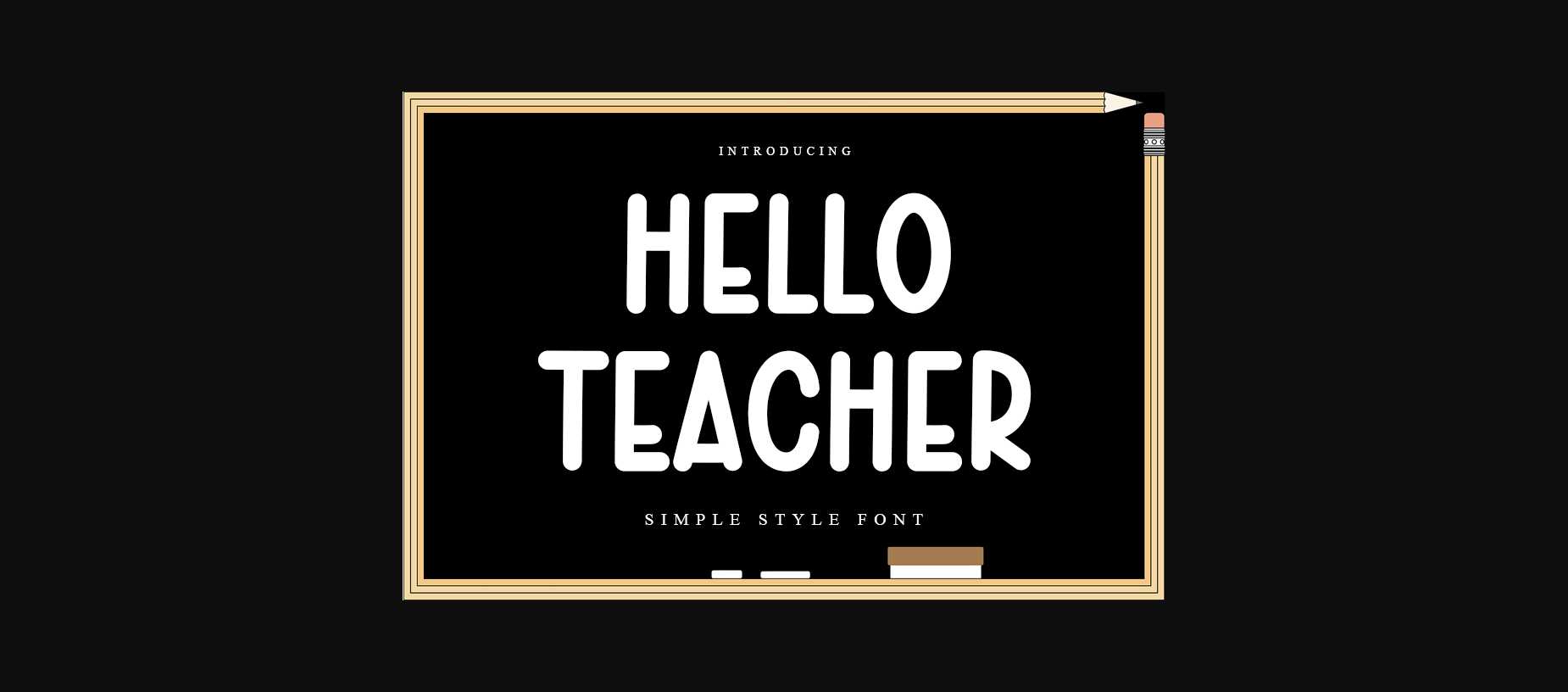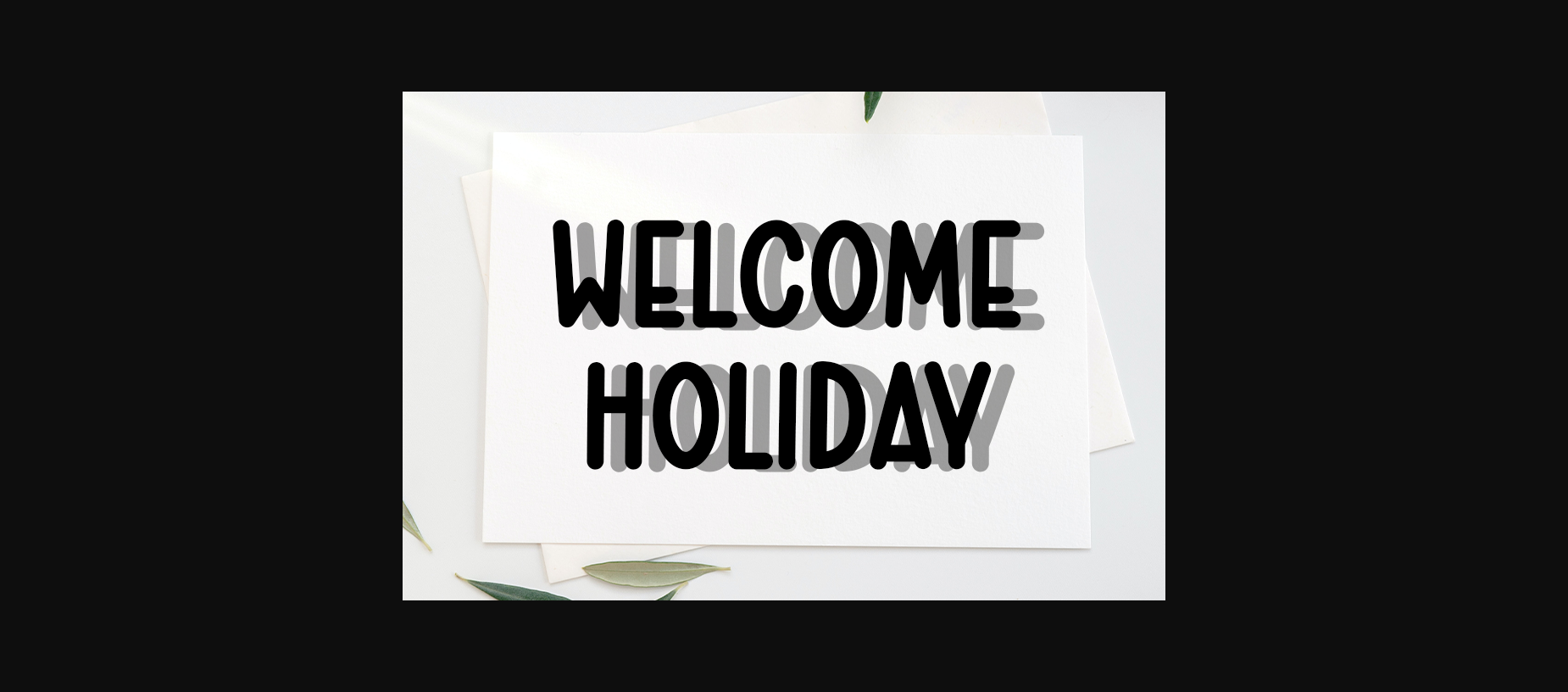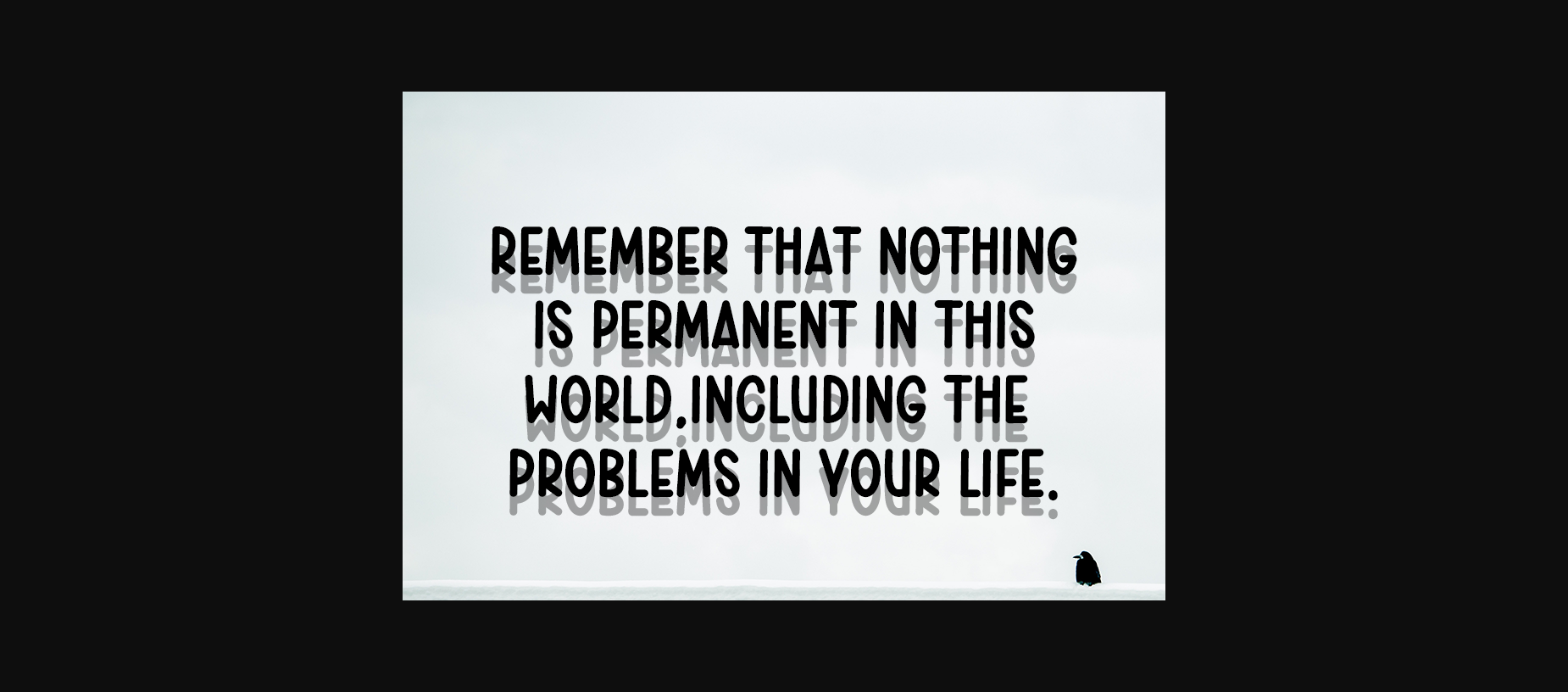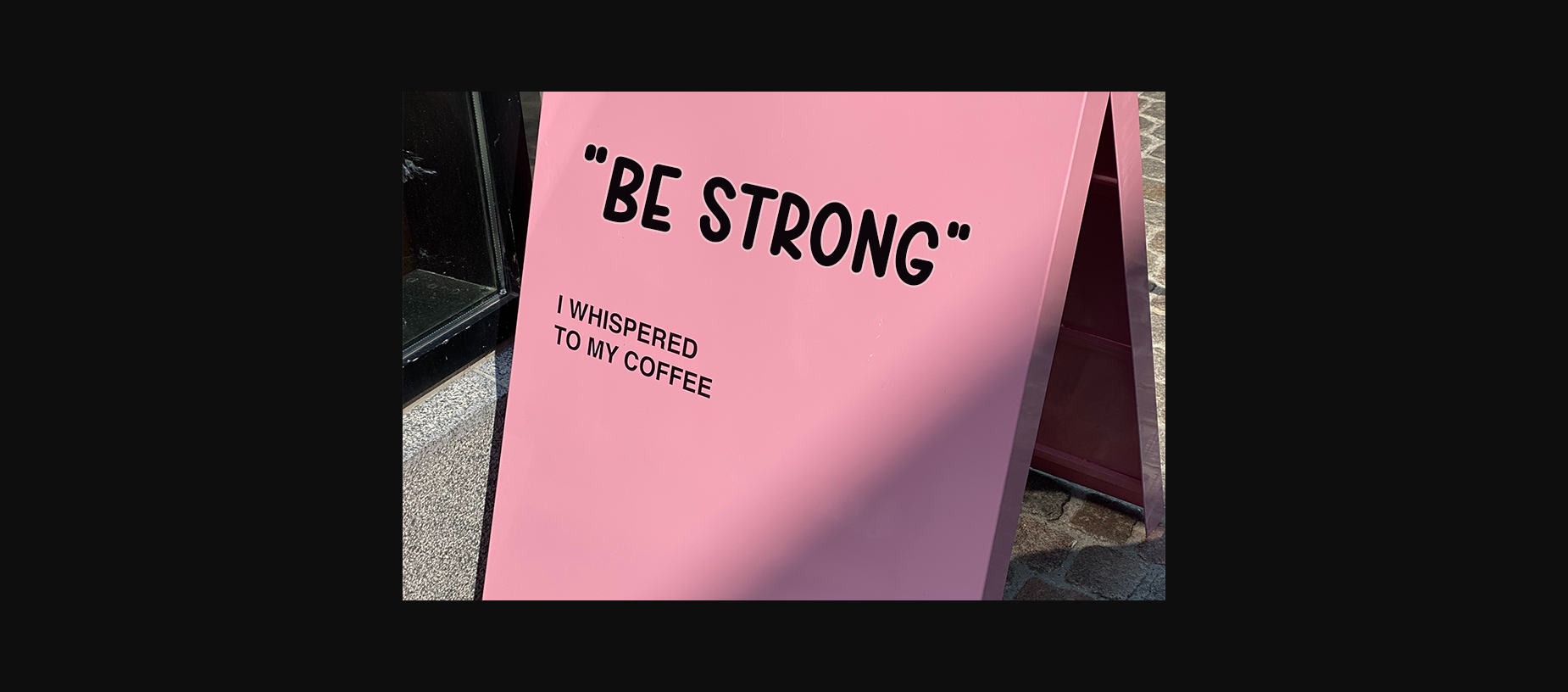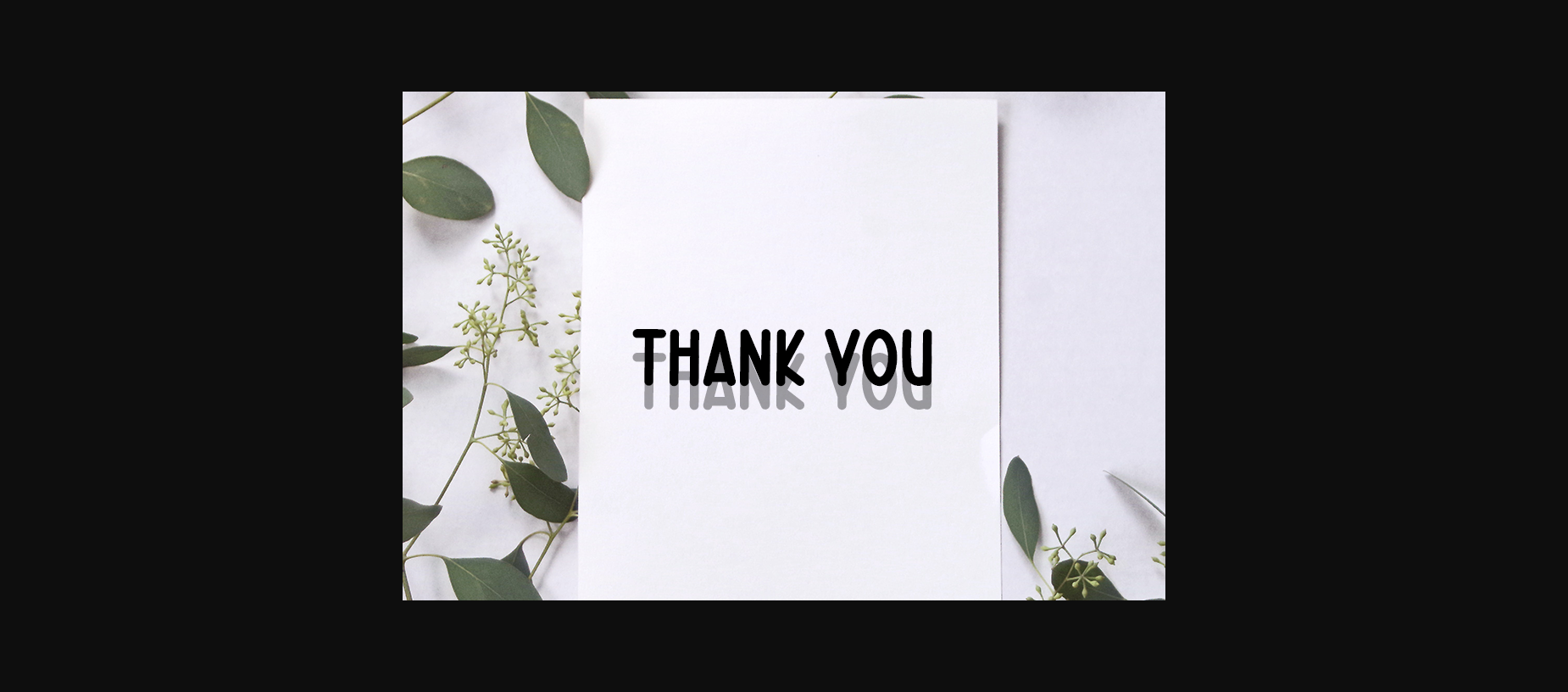
About Hello Teacher Font
Hello Teacher is a cool and modern and rounded sans serif font. Whether you’re using it for crafts, digital design, presentations, or making greeting cards, this font has the potential to become your favorite go-to font, no matter the occasion